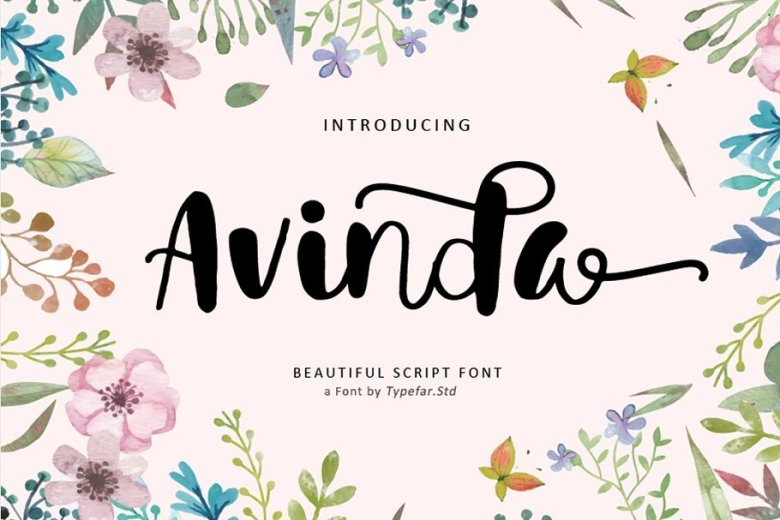
Avinda Script Font
Hello All…. Introducing!! A new modern & fresh script with script style make this font looks natural, classy. Introducing Avinda Font. Avinda – This font will be great for any design project like merchandise, logo, invitation, quote, social media post, magazine cover, watermark, and many more!!